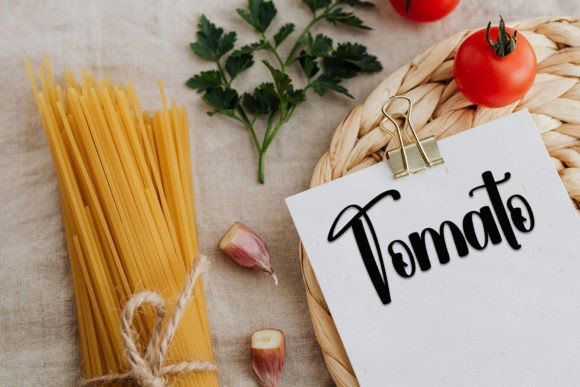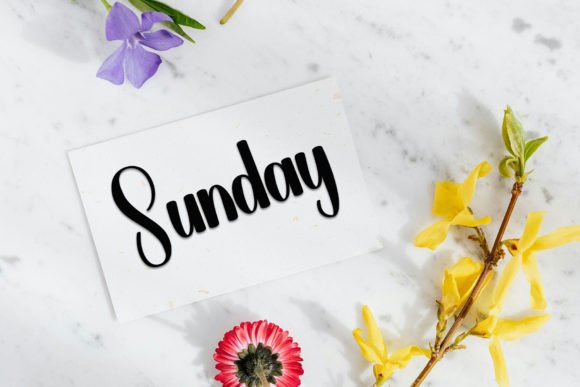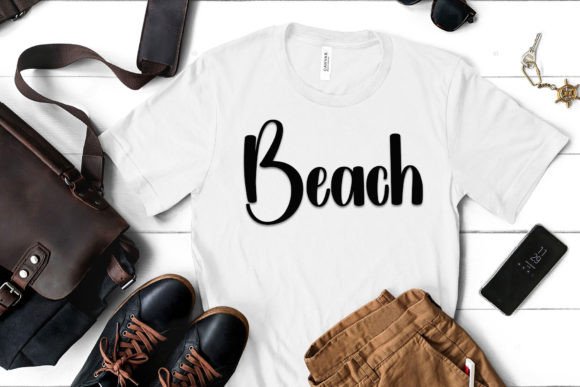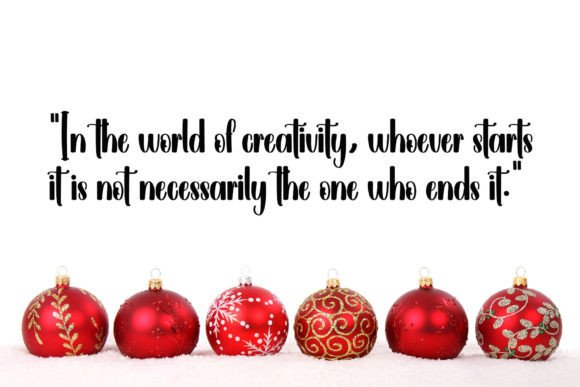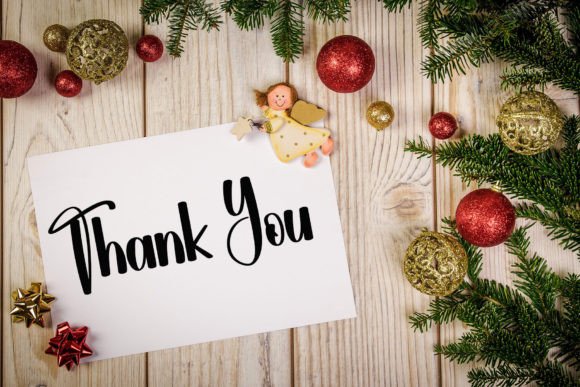
Baby Bathing Font: Elevate Your Designs with Elegance and Class
In the world of design, fonts play a crucial role in conveying the tone and aesthetic of a project. For designers and crafters seeking to add a touch of elegance and sophistication to their work, the Baby Bathing Font is an excellent choice. This trendy handwritten font boasts a contemporary atmosphere and impeccable form, drawing inspiration from timeless classic calligraphy.
The Inspiration Behind Baby Bathing Font
Baby Bathing Font is a masterful blend of traditional and modern design elements. Its creators drew inspiration from classic calligraphy, infusing it with a fresh and modern twist. The result is a font that exudes elegance and refinement, perfect for designers looking to add a touch of sophistication to their projects.
Key Features of Baby Bathing Font
- Trendy Handwritten Style: Baby Bathing Font features a beautiful, handwritten style that adds a personal touch to any design project.
- Contemporary Atmosphere: The font’s modern design ensures it remains relevant and fresh, making it perfect for contemporary design projects.
- Impeccable Form: The font’s impeccable form ensures that it remains legible and visually appealing, even at smaller font sizes.
- Timeless Classic Calligraphy Inspiration: The font’s inspiration from classic calligraphy gives it a timeless quality, making it suitable for a wide range of design projects.
Uses of Baby Bathing Font
Baby Bathing Font is an incredibly versatile font, suitable for a wide range of design projects. Some potential uses include:
- Wedding Invitations and Stationery: The font’s elegant and refined style makes it perfect for wedding invitations, stationery, and other formal events.
- Branding and Packaging: Baby Bathing Font can add a touch of sophistication to branding and packaging designs, helping to elevate a brand’s image.
- Signage and Displays: The font’s clear and legible design makes it suitable for signage and displays, both indoors and outdoors.
- Digital Media: Baby Bathing Font can also be used in digital media, such as social media graphics, blog headers, and website designs.
Benefits of Using Baby Bathing Font
Using Baby Bathing Font in design projects offers several benefits, including:
- Elegance and Sophistication: The font adds a touch of elegance and sophistication to any design project.
- Versatility: Baby Bathing Font is suitable for a wide range of design projects, from formal events to digital media.
- Legibility: The font’s clear and legible design ensures that text remains easy to read, even at smaller font sizes.
- Timeless Appeal: The font’s inspiration from classic calligraphy gives it a timeless quality, making it a valuable addition to any designer’s font library.
Tips for Using Baby Bathing Font
To get the most out of Baby Bathing Font, consider the following tips:
- Pair with Complementary Fonts: Pair Baby Bathing Font with complementary fonts to create visual interest and add depth to your design.
- Experiment with Font Sizes: Experiment with different font sizes to create a clear visual hierarchy and draw attention to important text.
Baby Bathing Font is a beautiful and elegant font that can elevate any design project. Its trendy handwritten style, contemporary atmosphere, and impeccable form make it perfect for designers and crafters seeking to add a touch of sophistication to their work. With its versatility, legibility, and timeless appeal, Baby Bathing Font is an excellent addition to any designer’s font library.